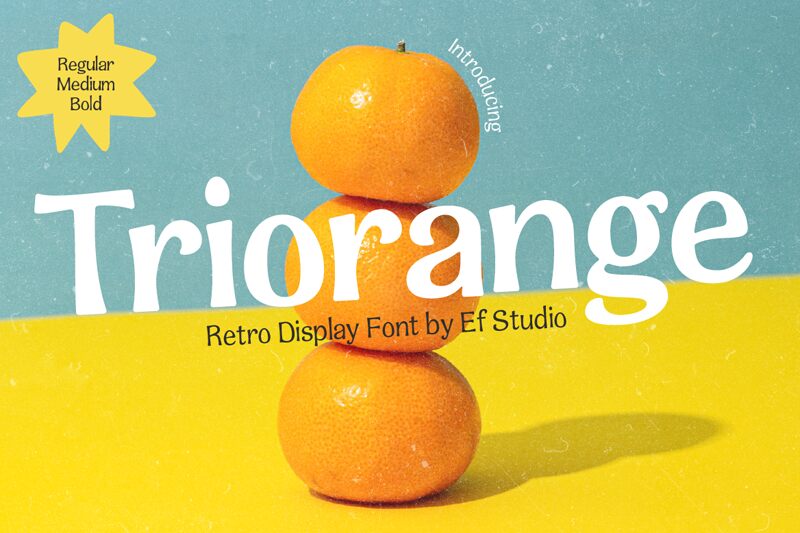
Triorange font family is a free font collection that brings back the charm of the retro style with a whimsical flair. Created by Ef Studio, this collection includes three font styles, each offering a playful and nostalgic touch to your designs. With its casual and friendly appeal, this font family is perfect for creating inviting visuals in various contexts.
Use Triorange in logo designs, branding projects, product packaging, book covers, and magazine layouts. It works well for social media graphics, website headers, posters, and invitations too. Its vintage yet contemporary style makes it a versatile choice for both digital and print projects.